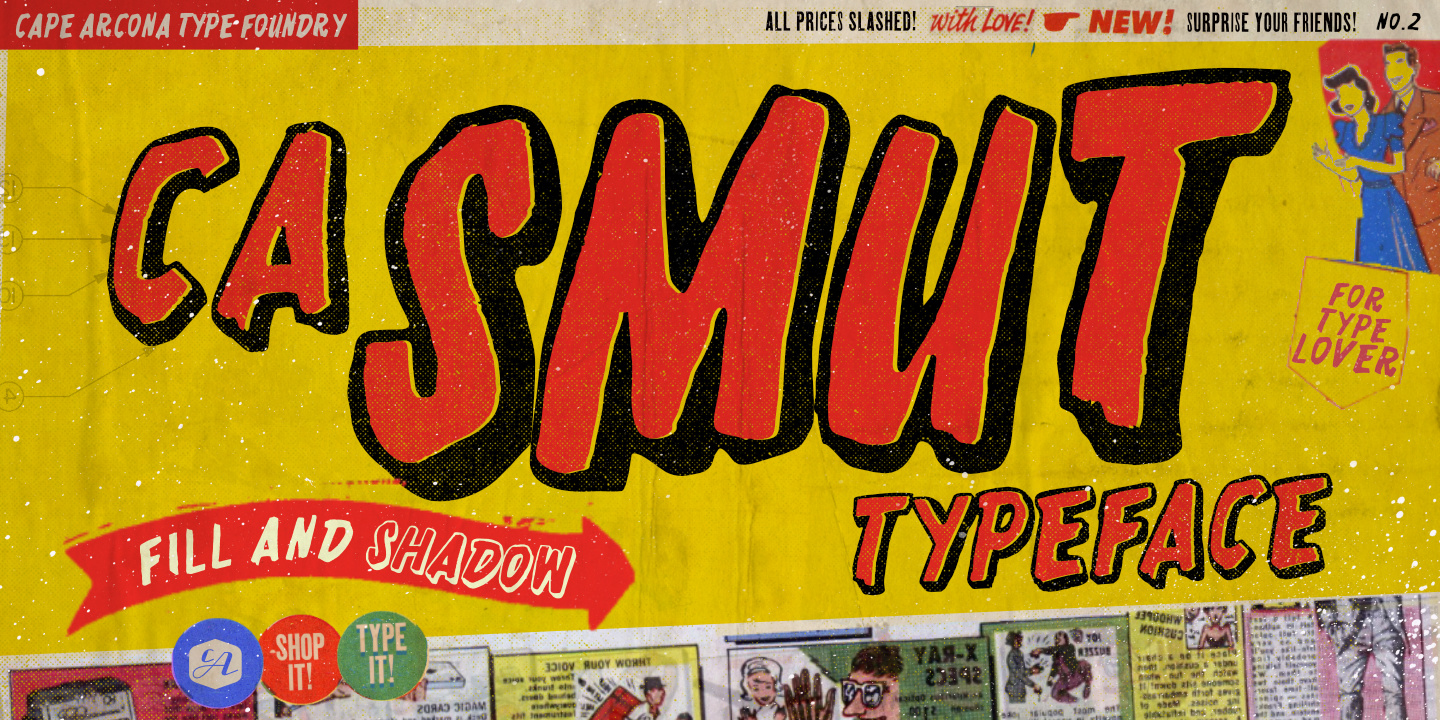
This playful, distressed typeface is perfect for horror movie posters, comic book titles, children’s books, playful branding, and social media graphics.
The CA Smut Font is exciting because its bold, hand-drawn style with a cartoonish, gritty charm creates a dynamic, eye-catching aesthetic, perfect for unique, energetic designs.
Its font family includes CA Smut Regular and CA Smut Fill, offering layered styles for creative versatility.
Looking for a font that combines gritty charm with playful energy? CA Smut Font Free Download is an ideal choice for designers seeking a bold, distinctive typeface. Designed by Thomas Schostok and published by Cape Arcona Type Foundry, this comic-style font features two stackable styles: CA Smut Regular (shadow) and CA Smut Fill (filling). Its distressed, hand-drawn look makes it perfect for creating standout visuals in both digital and print projects, from horror-themed designs to quirky branding.
The CA Smut Font excels in applications where bold personality is key. It’s a top pick for horror movie posters, where its rough, cartoonish style adds a chilling yet playful vibe. Comic book titles and children’s books benefit from its dynamic, slanted letterforms, ensuring readability with a fun edge. Playful branding for products like toys or snacks uses its gritty charm to stand out, while social media creators leverage it for engaging Instagram posts, TikTok overlays, or YouTube thumbnails. Its layered design allows for creative color play and offset effects, enhancing visual impact.
What makes the CA Smut Font Free Download so captivating is its ability to blend a distressed, retro aesthetic with modern versatility. The Regular style provides a shadowed outline, while Fill adds solid, bold filling, allowing designers to experiment with colors and tracking for unique effects. Available in OpenType format, it supports tools like Adobe Illustrator and InDesign, though spacing and kerning are optimized for layered use, so standalone Fill may yield surprising results. Its all-caps, slightly slanted design adds motion and energy, making it ideal for eye-catching headlines or logos.
The CA Smut Font family includes CA Smut Regular for shadowed effects and CA Smut Fill for solid fills, offering a layered approach to typography. This duo enables designers to create small masterpieces by mixing colors or adjusting offsets, though using Fill alone requires careful spacing adjustments. For commercial use, a license is required, available at https://www.myfonts.com or https://www.fontspring.com, ensuring compliance for professional projects.